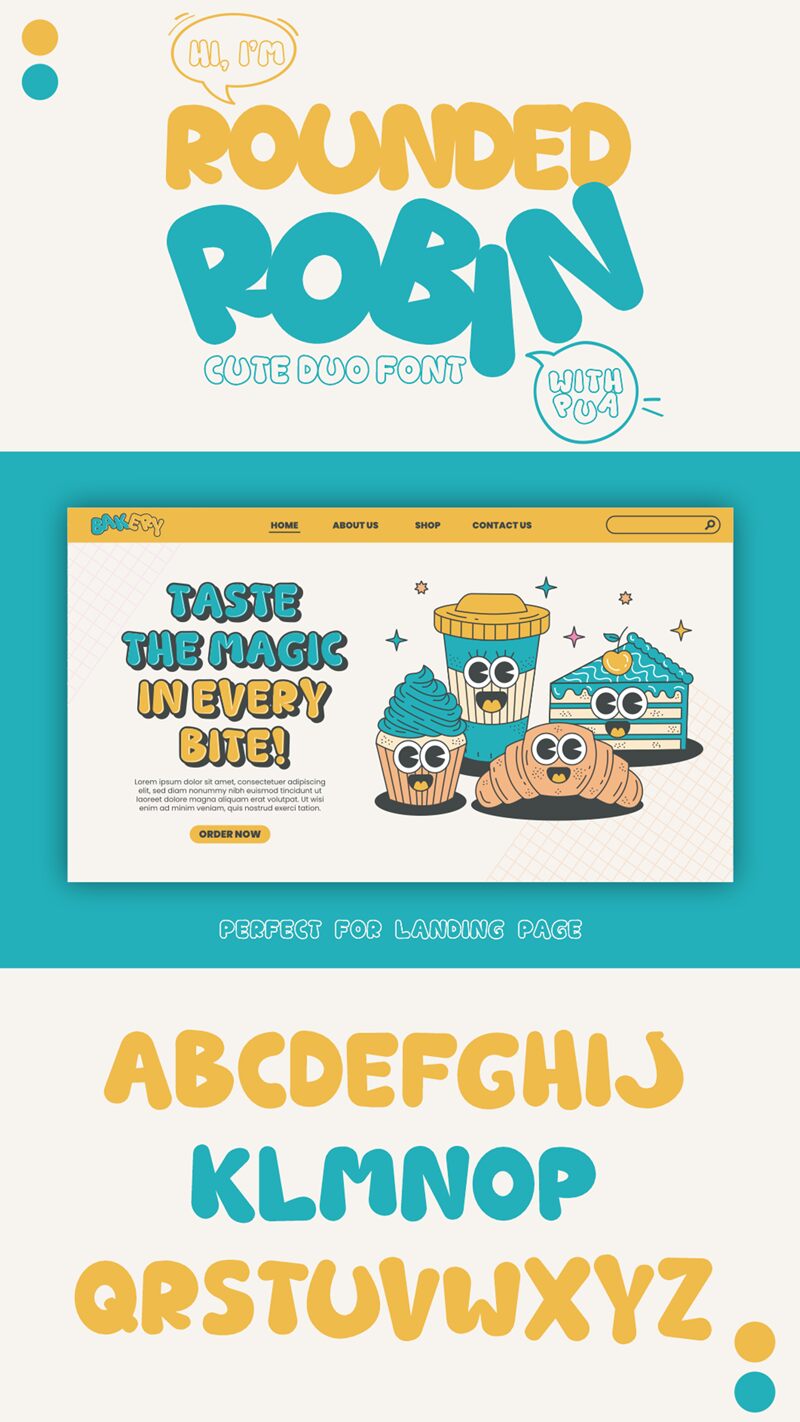
Rounded Robin font family by Cikareotype Studio is a free font family that contains two playful cartoon font styles. Each type style integrates a bouncy rhythm that evokes a youthful energy suitable for many playful uses. The font family is made of uppercase letters with a unique style. These are combined with the available lowercase character that imitates the regular letter baseline. Together with a second style made of alphabet doodles, the Rounded Robin is simply fun.
The font use is simple and straightforward. It supports big-size titles where the type character detail is visible. All monotone letters are double-colored with a black color that outlines the white inside. That’s why this type family fits really well with friendly comics, cartoon strips, post titles on children’s educational books, typography drawings, digital or printed games, and lots more.